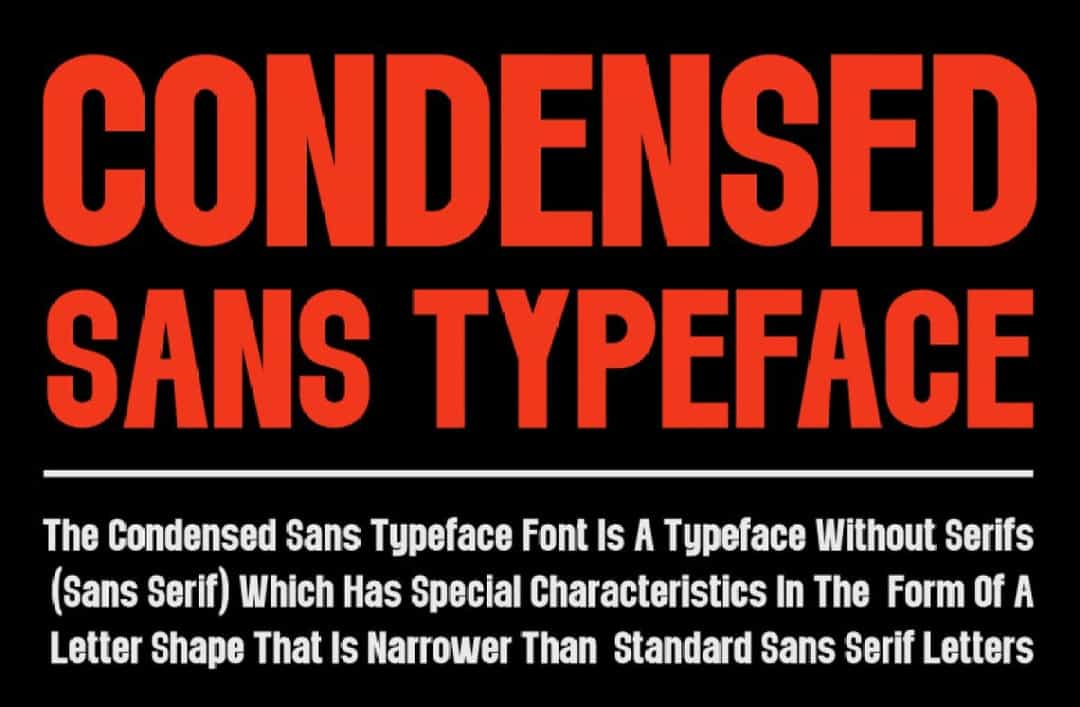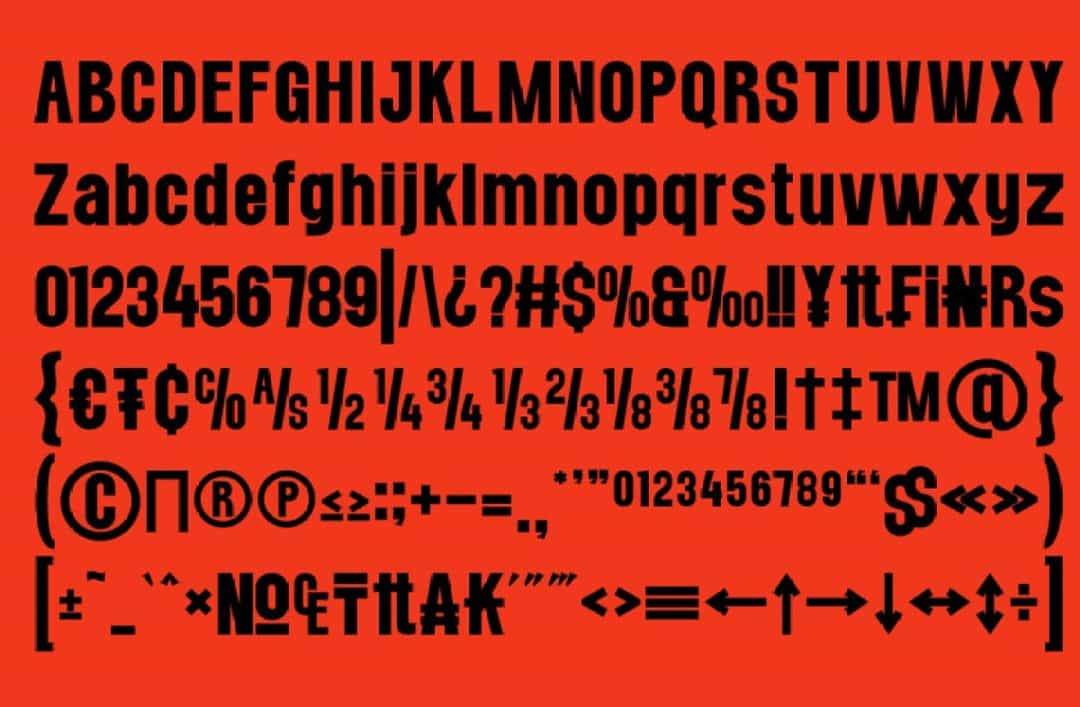
Discover Skecther Font, part of the Sans Serif collection—a versatile and unique font perfect for adding a personal touch to your projects. Download it for free and enjoy crafting designs with style, from invitations to social media posts. This font is available exclusively for personal use, giving you the freedom to create without limits. Unlock your creativity with Skecther Font today!
We are happy to present to you our new product Skecther – Condensed Sans Typeface. This font is characterized by having narrower lettering or what may be referred to as, slimmer letters than the normal or wide fonts.